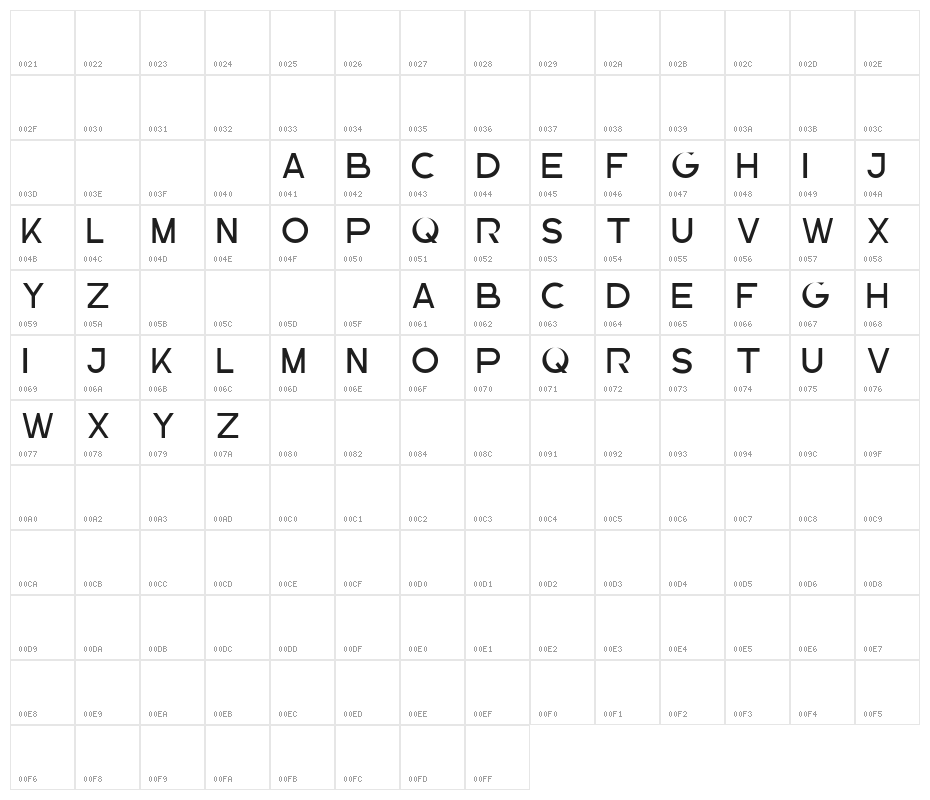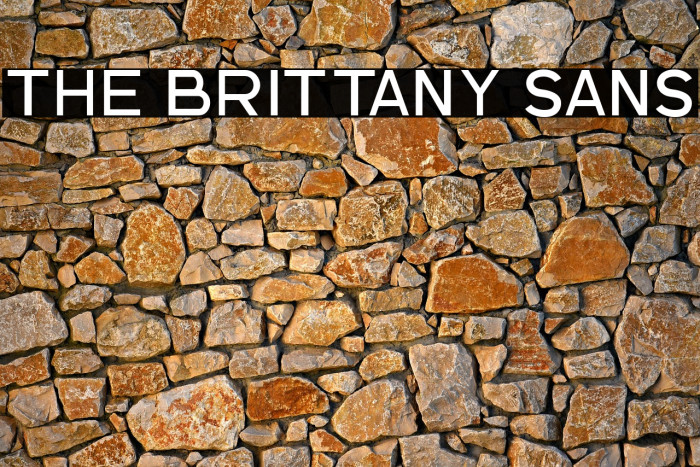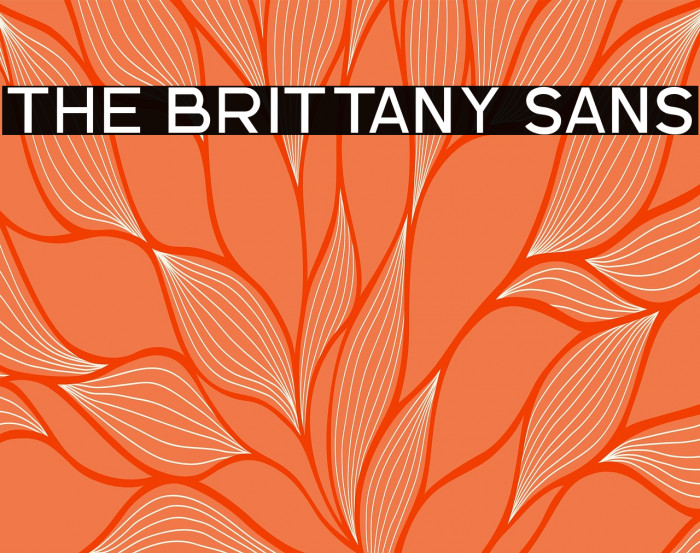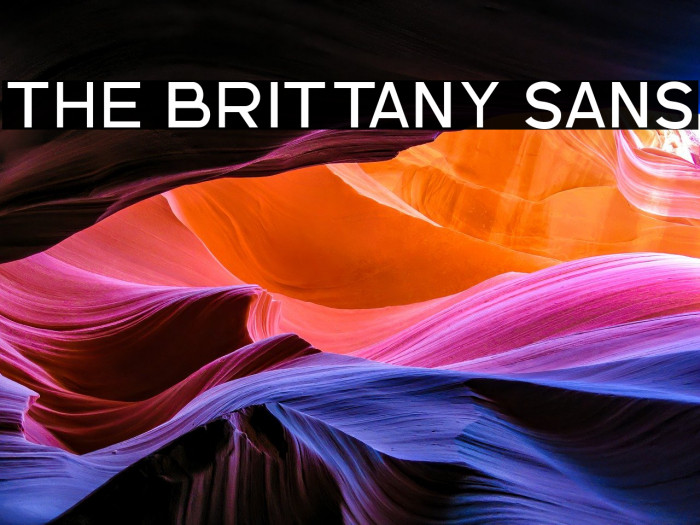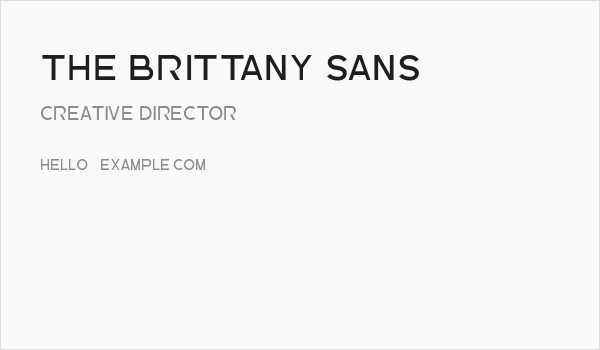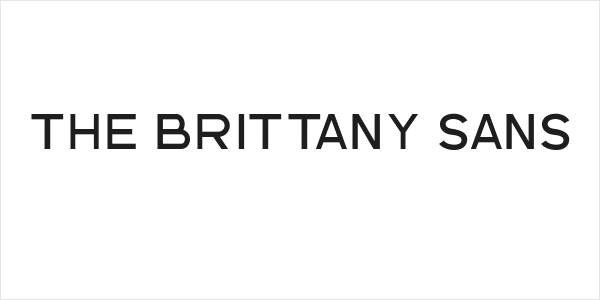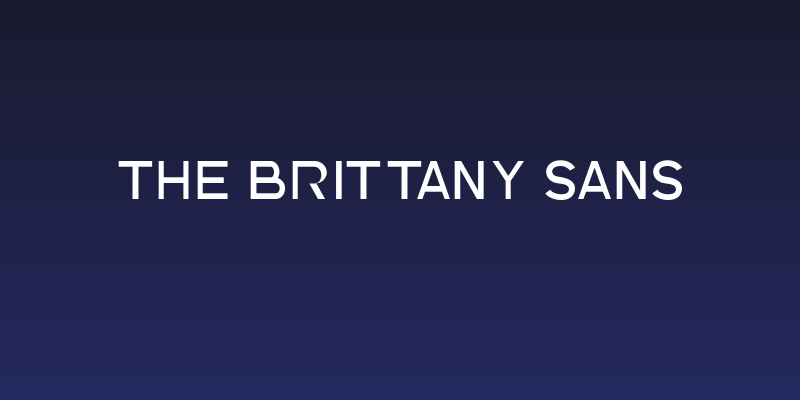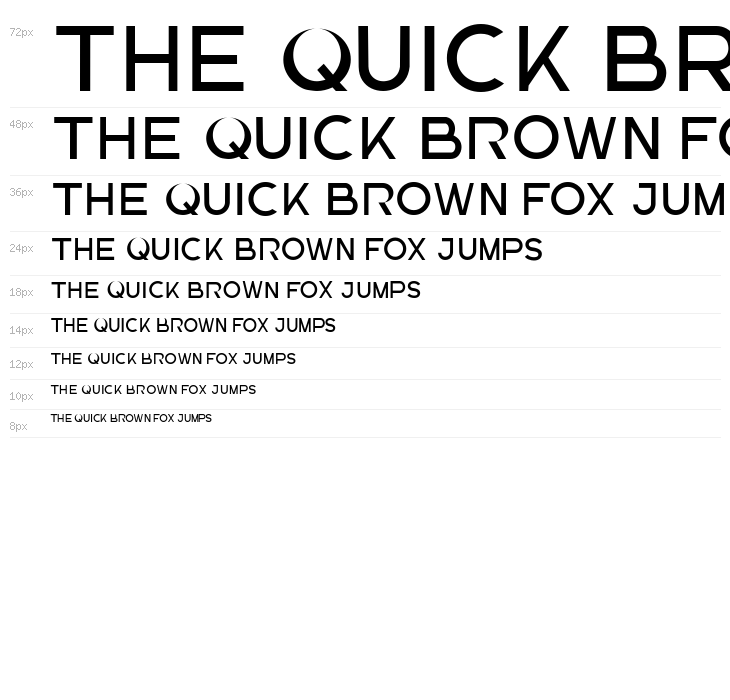
The Brittany Sans Font
The Brittany Sans Description
This font features a clean and modern sans-serif style with a geometric influence. The characters are uniform in width, providing a balanced and harmonious appearance. The uppercase letters are bold and assertive, while the lowercase letters maintain a consistent and readable form. The font exhibits a high contrast in stroke thickness, particularly noticeable in letters like 'G' and 'Q', which adds a unique flair to the overall design. The spacing between characters is normal, ensuring good readability across various text sizes. This font is versatile, making it suitable for both digital and print media.
| Proposed Projects | Ideal for branding, advertising, web design, and editorial layouts. |